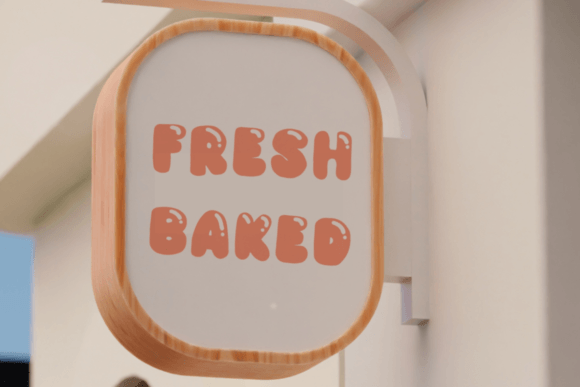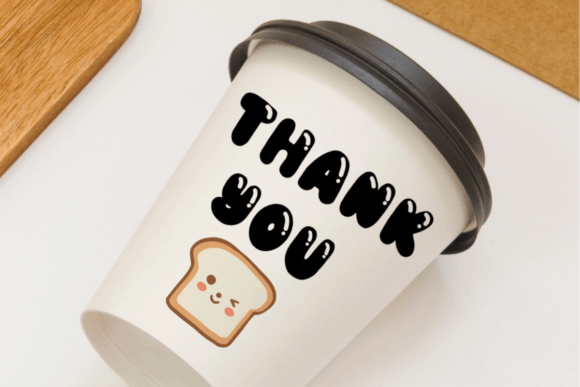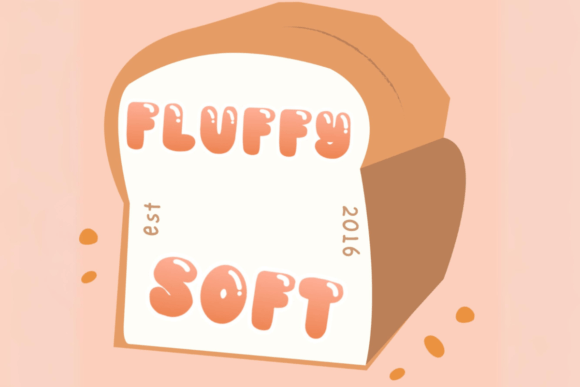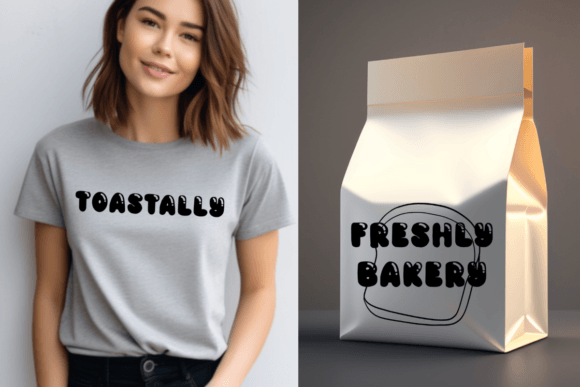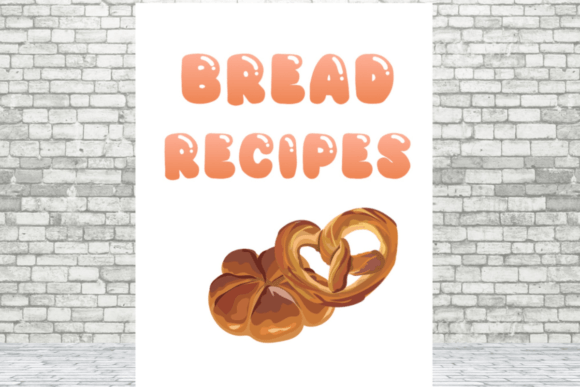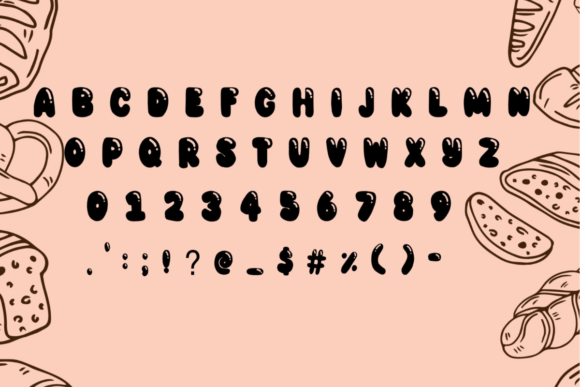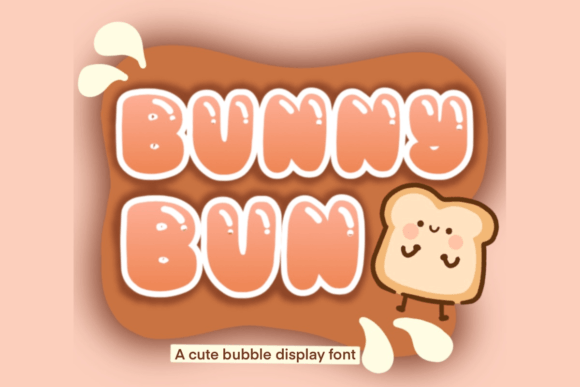
Bunny Bun Font: The Ultimate Choice for Cute and Playful Designs
Are you a designer or crafter looking for a font that can add a touch of whimsy and friendliness to your projects? Look no further than Bunny Bun Font! This adorable display font is perfect for creating lovely designs that are sure to capture the hearts of your audience. In this article, we’ll explore the features and benefits of Bunny Bun Font, and how you can use it to take your designs to the next level.
What is Bunny Bun Font?
Bunny Bun Font is a cute and bubbly display font that is designed to provide a touch of lovely and friendly handwritten charm to your designs. Its casual and playful vibe makes it perfect for a wide range of projects, from t-shirts and stickers to tote bags and candy packaging. With its unique and eye-catching style, Bunny Bun Font is sure to make your designs stand out from the crowd.
Features of Bunny Bun Font
So, what makes Bunny Bun Font so special? Here are just a few of its key features:
• Cute and playful design: Bunny Bun Font has a unique and adorable design that is sure to capture the hearts of your audience.
• Handwritten charm: This font has a friendly and approachable feel that makes it perfect for designs that require a personal touch.
• Casual and versatile: Bunny Bun Font can be used for a wide range of projects, from fun and playful designs to more serious and professional ones.
• Easy to read: Despite its playful design, Bunny Bun Font is easy to read and understand, making it perfect for use in titles, headings, and body text.
Uses of Bunny Bun Font
So, what can you use Bunny Bun Font for? The possibilities are endless! Here are just a few ideas to get you started:
• T-shirts and apparel: Add a touch of whimsy and fun to your t-shirt designs with Bunny Bun Font.
• Stickers and labels: Use Bunny Bun Font to create cute and playful stickers and labels for your products or packaging.
• Tote bags and accessories: Add a personal touch to your tote bags and accessories with Bunny Bun Font.
• Candy packaging and food menus: Use Bunny Bun Font to create eye-catching and adorable packaging and menus for your food business.
• Party decorations and invitations: Create playful and festive party decorations and invitations with Bunny Bun Font.
Benefits of Using Bunny Bun Font
So, why should you choose Bunny Bun Font for your designs? Here are just a few benefits of using this adorable font:
• Adds a personal touch: Bunny Bun Font adds a friendly and approachable feel to your designs, making them more relatable and engaging.
• Versatile and flexible: This font can be used for a wide range of projects and designs, making it a great addition to your font library.
• Unique and eye-catching: This font has a unique and eye-catching design that is sure to make your designs stand out from the crowd.
In conclusion, Bunny Bun Font is a cute and playful display font that is perfect for designers and crafters who want to add a touch of whimsy and friendliness to their projects. With its unique and eye-catching design, casual charm, and versatility, this font is sure to be a great addition to your font library. So why wait? Download Bunny Bun Font today and start creating lovely designs that are sure to capture the hearts of your audience!